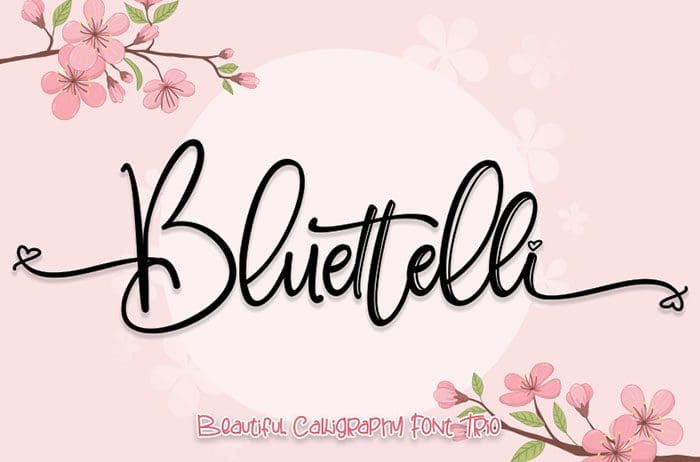
Free Bluettelli Script Font
Bluettelli Script Font
Free Bluettelli script font. It has a feminine and elegant look which is great for logos, invitations, and blogs, but can also be used to make a striking headline. Get inspired by this extraordinary set! Designed this font by Thomas Aradea. You can also search more free Fonts. Thanks!